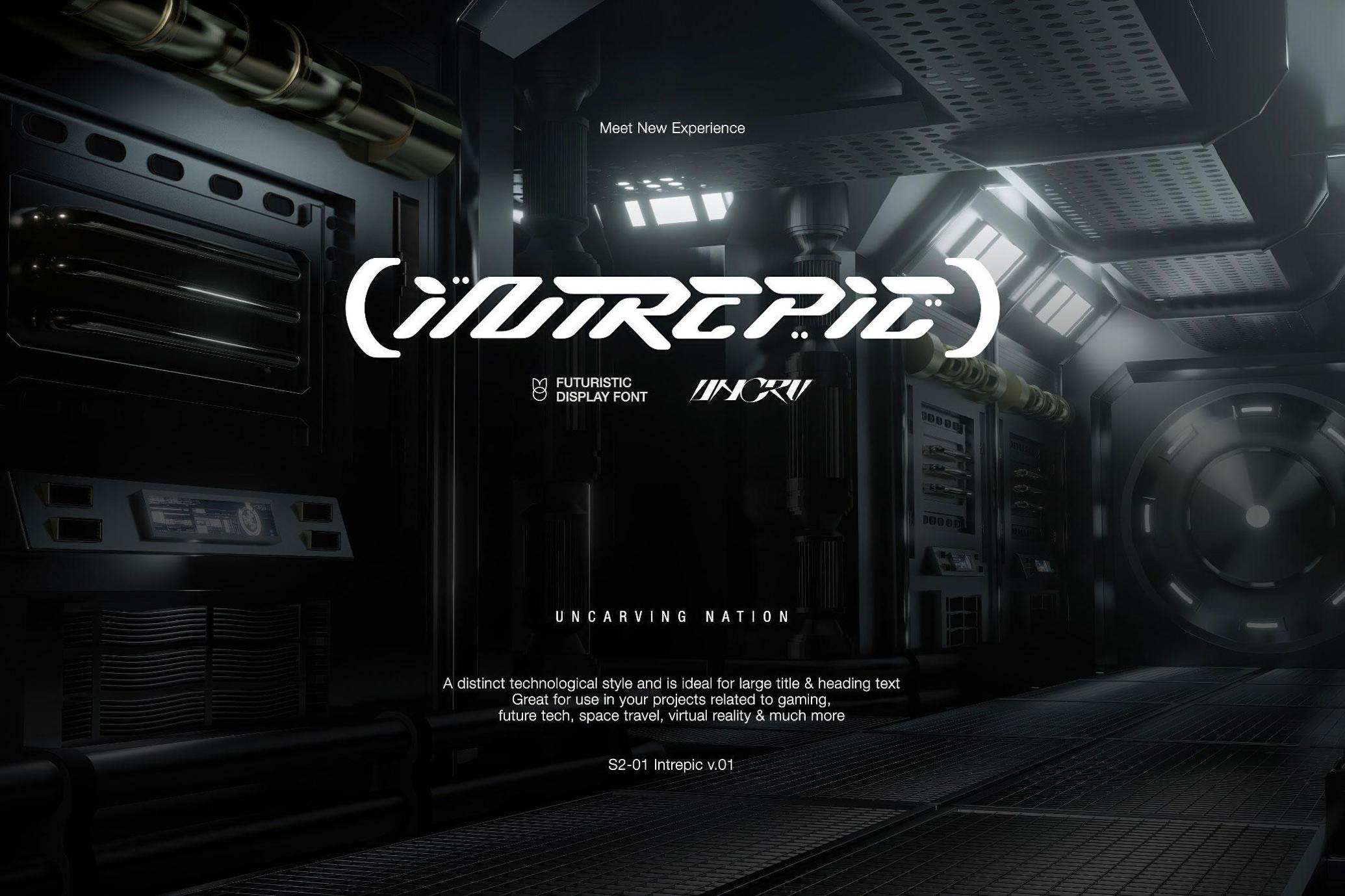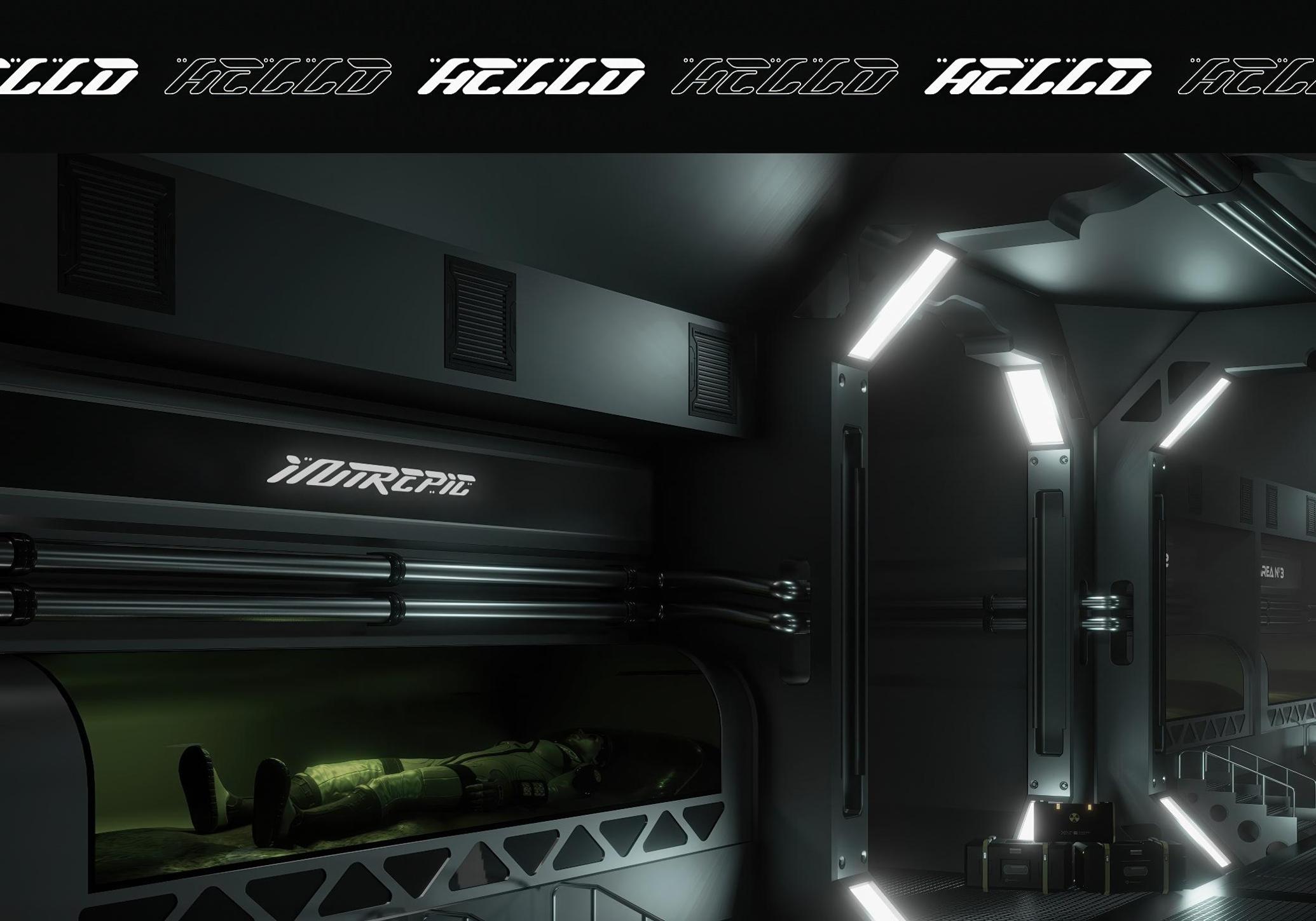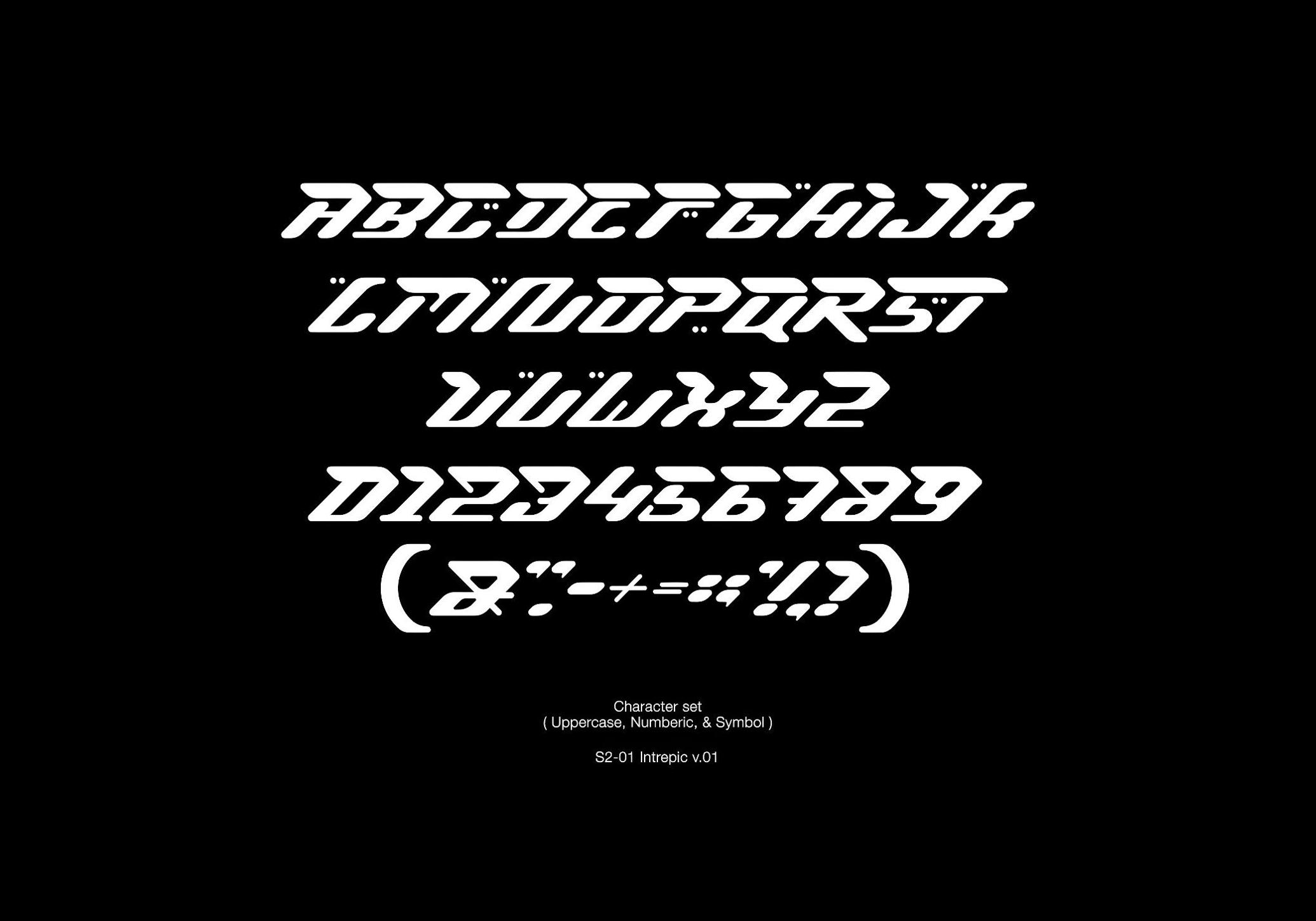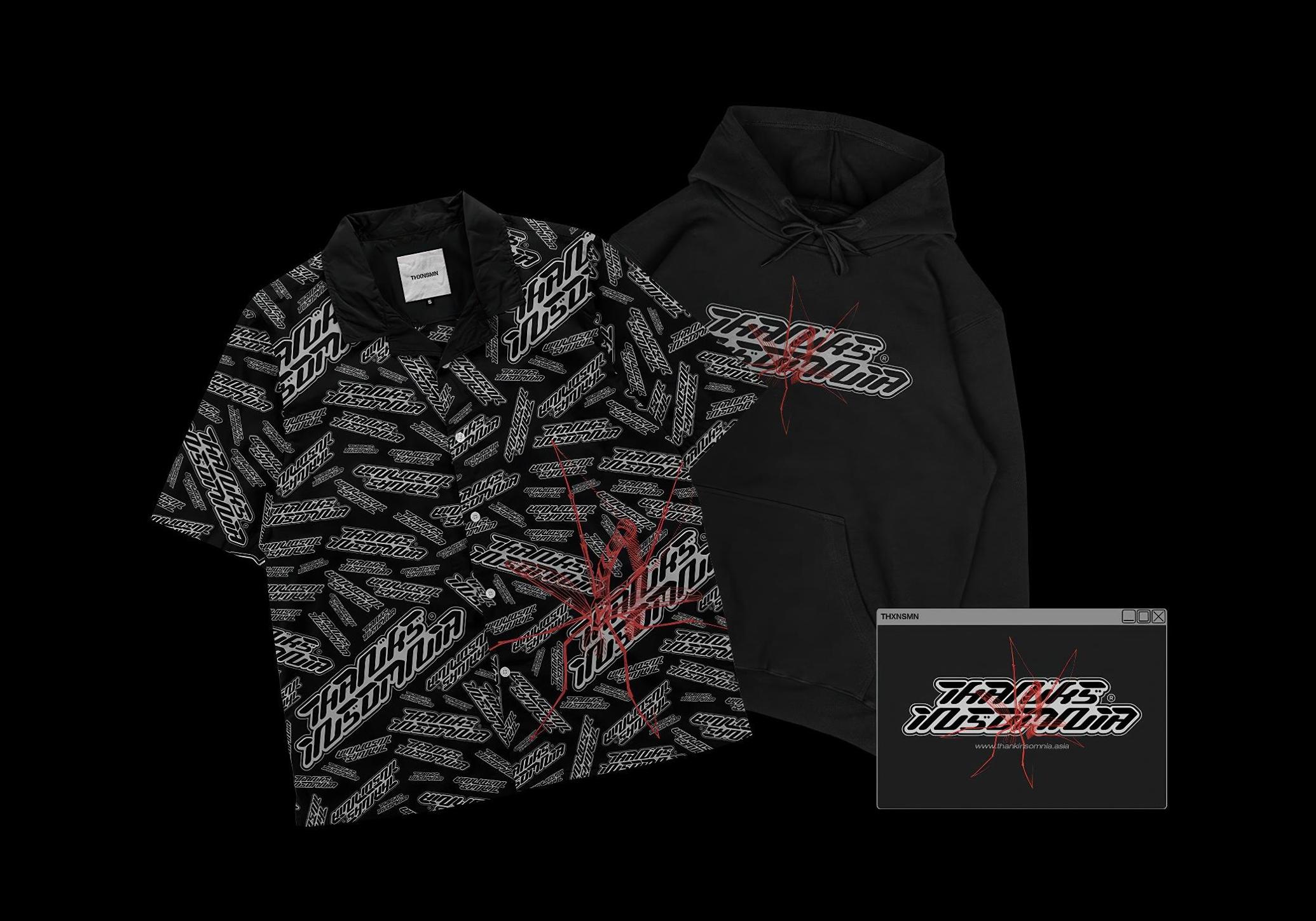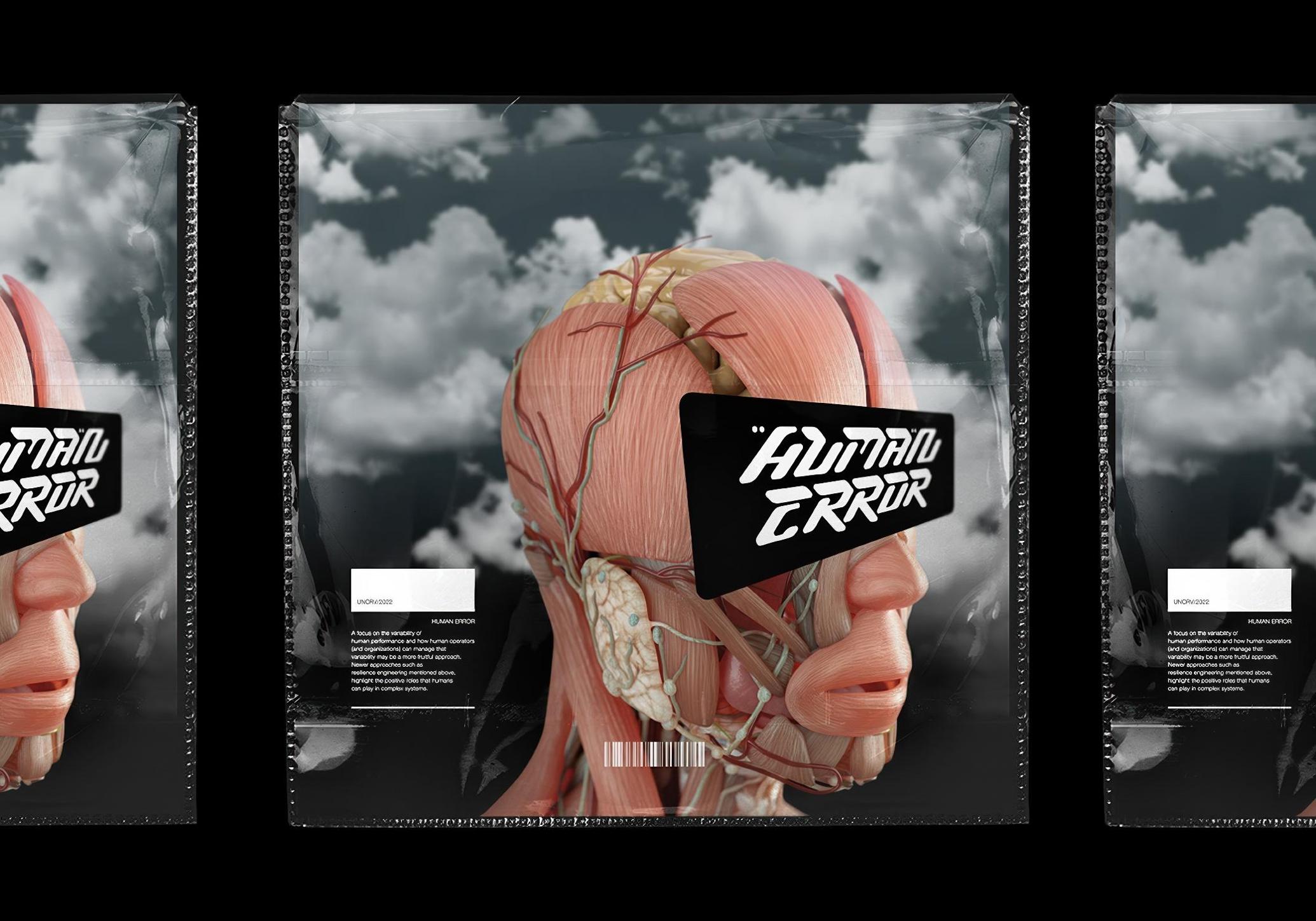
Intrepic Display Font
Welcome to the control deck. Intrepic Display is a full-on transmission from a distant future. Inspired by sci-fi schematics, aerospace hull markings, and glitchy HUD interfaces, it speaks fluent interplanetary design. Its streamlined curves, carved-out terminals, and cybernetic rhythm make it a natural pick for gaming titles, space-race branding, VR dashboards, or anything orbiting in the tech-heavy, retro-futuristic aesthetic.
You get uppercase characters, numerals, and essential punctuation — all delivered with a strong geometric pulse and a sense of encoded urgency.